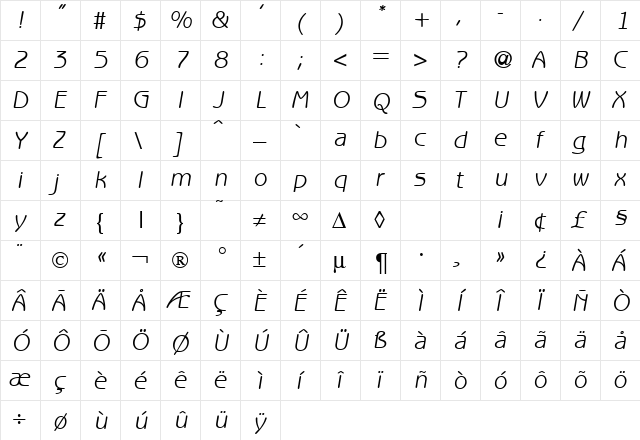
BenjaminSans RegularItalic Font Preview
BenjaminSans RegularItalic
BenjaminSans RegularItalic Font Details
Design Context for BenjaminSans Typeface
BenjaminSans takes a measured approach to typography — its balanced proportions and neutral character make it a reliable workhorse for both digital and print work. Its italic angle brings a sense of urgency and motion to the letterforms.